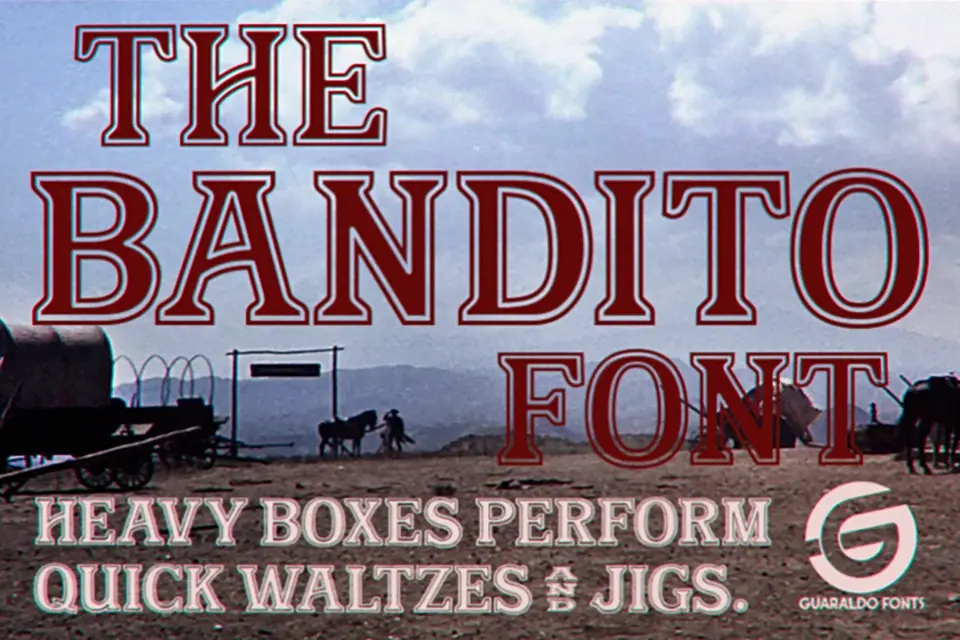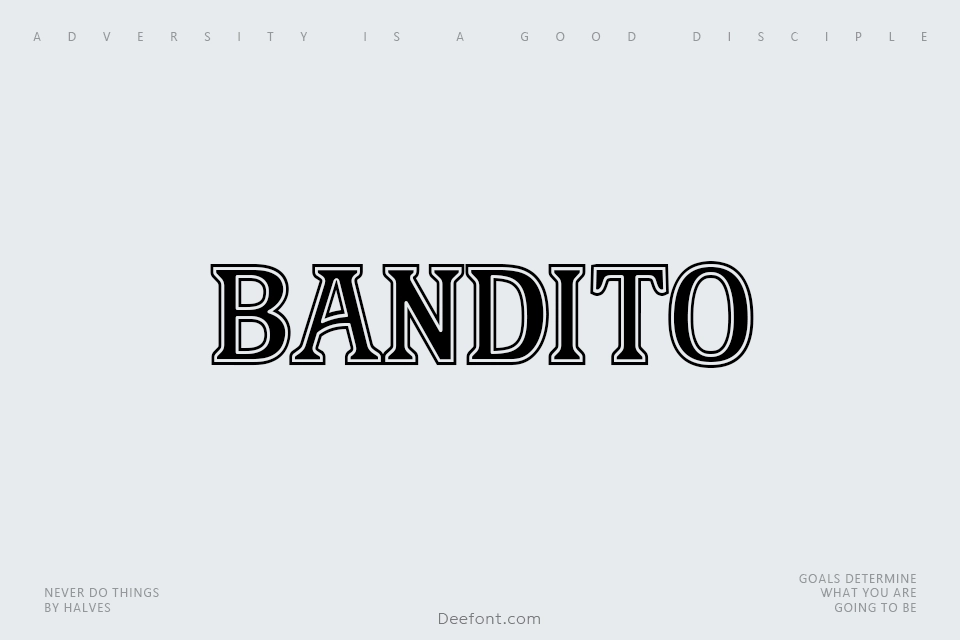
Bandito Font
Bandito is a bold and expressive display font that captures the spirit of the Wild West with its distinctive character and personality. This free typeface features a unique geometric construction softened by classic wood type influences, making it perfect for headlines, posters, and creative branding projects. With its striking letterforms and dynamic presence, Bandito delivers authentic Western charm to any design application, ideal for designers seeking a memorable typeface with distinctive personality and versatile creative applications.